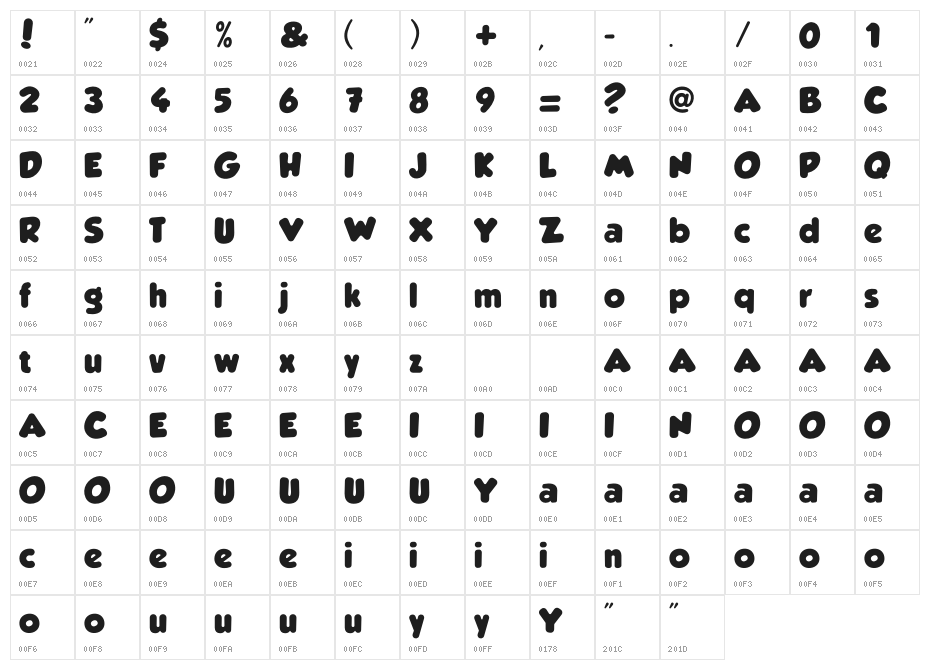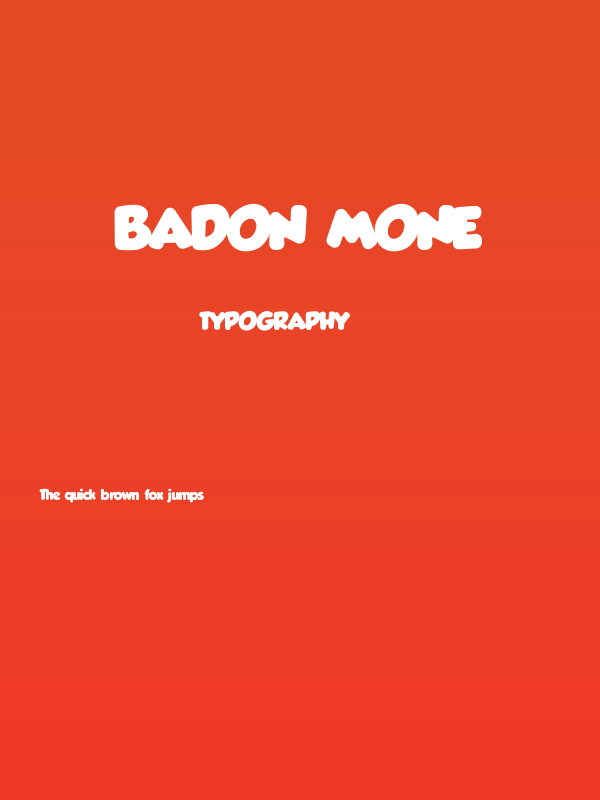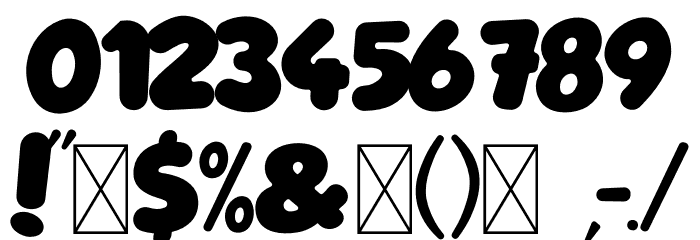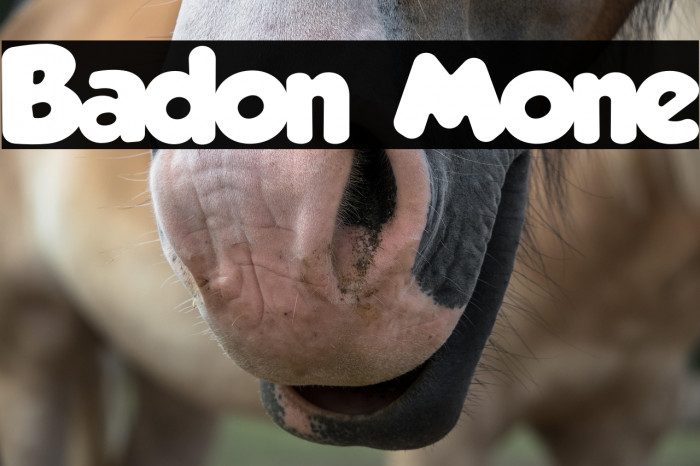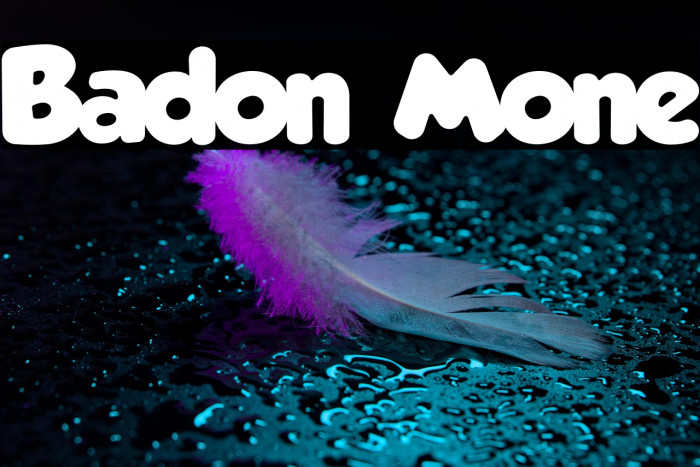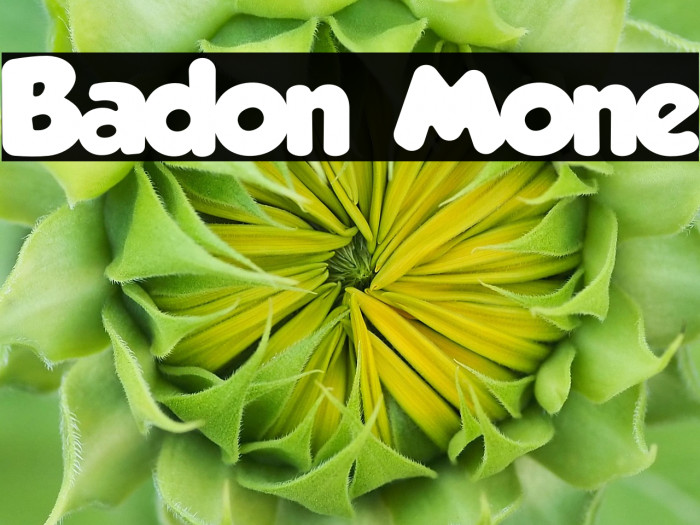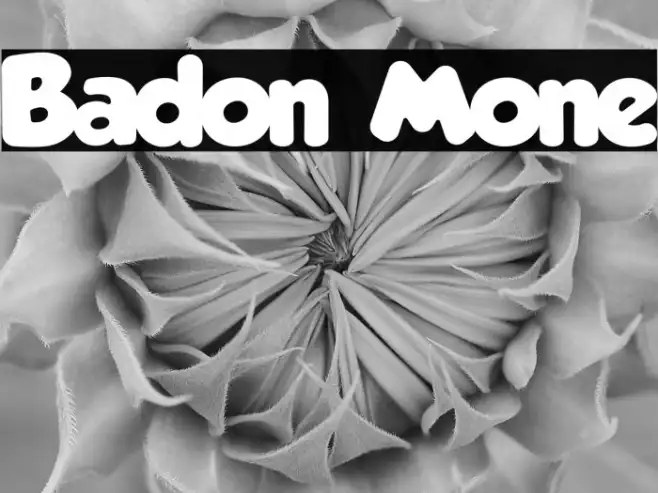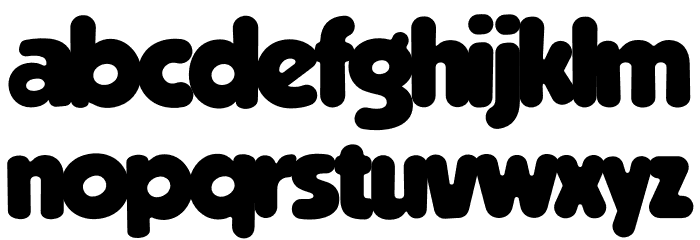
Badon Mone Font
Badon Mone Description
This font features a bold and playful style with rounded, thick strokes that give it a bubbly and friendly appearance. The characters are uniformly wide, creating a sense of balance and consistency across both uppercase and lowercase letters. The numbers and special characters maintain the same playful aesthetic, making the font suitable for a variety of creative applications. Its boldness ensures high visibility and impact, making it ideal for attention-grabbing designs. The overall style is modern and decorative, with a touch of whimsy that adds personality to any project.
| Proposed Projects | Ideal for children's books, playful branding, posters, and creative advertising campaigns. |